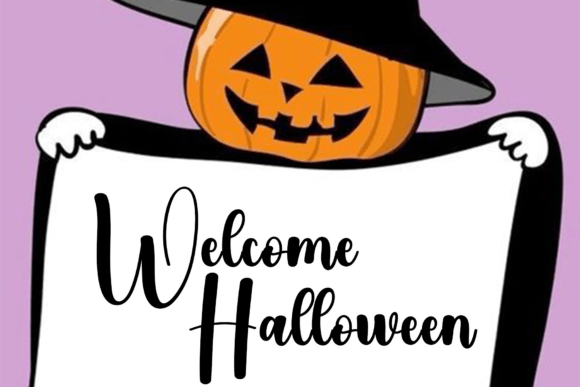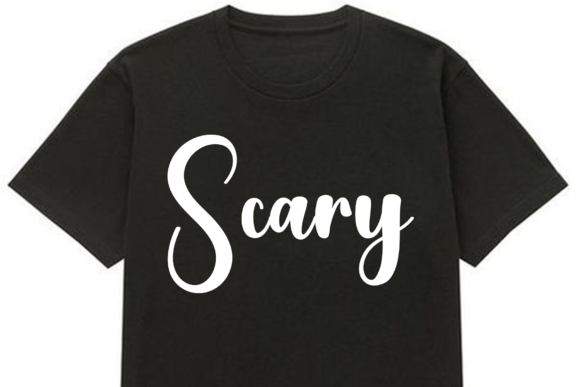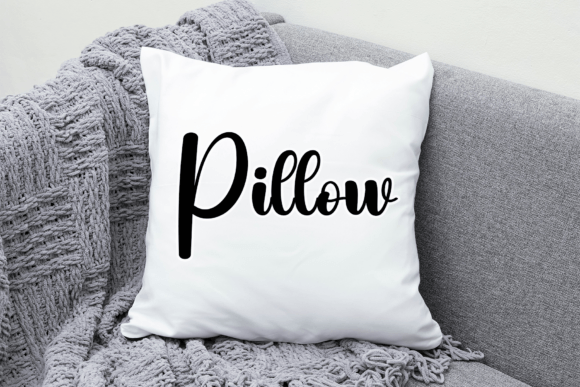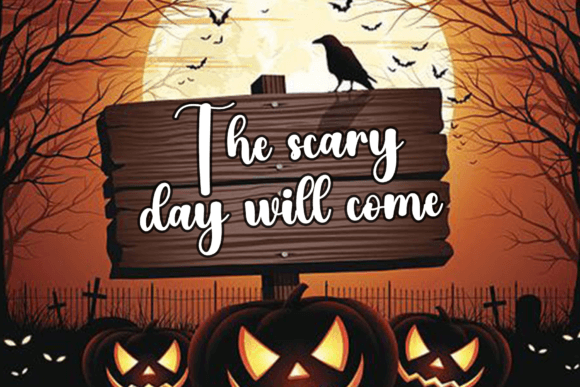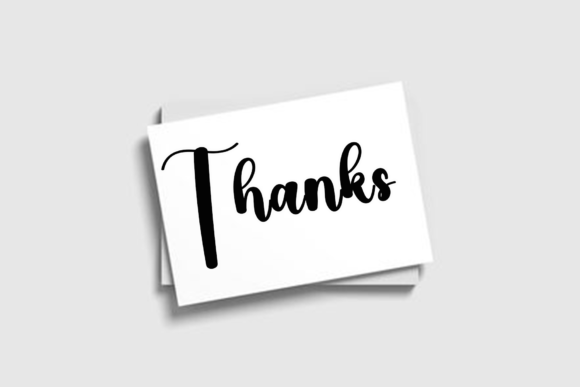
Unleash the Spooky Spirit: A Comprehensive Guide to Halloween Fonts
As the spookiest time of the year approaches, designers and crafters are on the lookout for the perfect Halloween font to add a touch of eeriness and whimsy to their projects. Whether you’re creating invitations, social media graphics, or branding materials, the right font can make all the difference. In this article, we’ll dive into the world of Halloween fonts, with a special focus on the charming handwriting font, HALLOWEEN.
What Makes a Great Halloween Font?
A great Halloween font should evoke a sense of spookiness, mystery, and playfulness. It should be versatile enough to be used in various design projects, from creepy invitations to festive social media graphics. When it comes to choosing a Halloween font, consider the following factors:
- Uniqueness: A Halloween font should stand out from the crowd and add a touch of personality to your designs.
- Legibility: Ensure that your font is easy to read, even in smaller sizes.
- Atmosphere: Choose a font that evokes the right atmosphere, whether it’s spooky, playful, or eerie.
Introducing HALLOWEEN: A Charming Handwriting Font
HALLOWEEN is a beautiful handwriting font that embodies the spirit of the spookiest time of the year. Its fluid strokes and organic lines create a laid-back vibe, making it perfect for various design projects. This charming font is imbued with a sense of freshness and casual elegance, adding a touch of warmth and personality to any design.
HALLOWEEN’s unique characteristics make it an excellent choice for:
- Branding: Create a memorable brand identity with HALLOWEEN’s distinctive and elegant style.
- Invitations: Set the tone for a spooktacular party with HALLOWEEN’s playful and festive vibe.
- Social Media Graphics: Add a touch of personality to your social media posts and stories with HALLOWEEN’s charming handwriting style.
Tips for Using Halloween Fonts in Your Designs
When working with Halloween fonts, keep the following tips in mind:
- Experiment with sizes and colors: Play around with different font sizes and colors to create a unique and eye-catching design.
- Combine with other fonts: Pair your Halloween font with other fonts to create a striking contrast and add visual interest.
- Consider the tone: Ensure that your font choice aligns with the tone of your design, whether it’s spooky, playful, or elegant.
Popular Halloween Font Styles
From creepy and eerie to playful and whimsical, there are numerous Halloween font styles to choose from. Some popular options include:
- Serif fonts: Classic and elegant, serif fonts are perfect for creating a sophisticated Halloween design.
- Script fonts: Add a touch of elegance and whimsy with script fonts, perfect for invitations and social media graphics.
- Display fonts: Make a statement with bold and eye-catching display fonts, ideal for headlines and titles.
HALLOWEEN is a charming handwriting font that is sure to add a touch of personality and whimsy to your designs. With its fluid strokes and organic lines, this font is perfect for various design projects, from branding to social media graphics. By considering the factors mentioned above and experimenting with different font styles, you’ll be well on your way to creating spooktacular designs that will leave a lasting impression.
So, don’t be afraid to get creative and have fun with Halloween fonts! Whether you’re a designer or crafter, the right font can make all the difference in creating a memorable and engaging design.